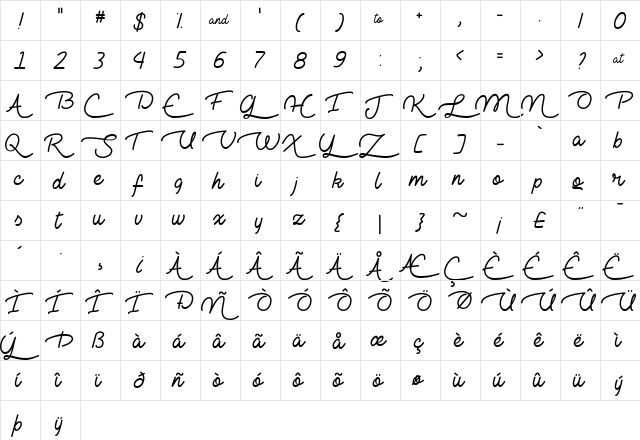
Lie to Me Regular
Design Context for Lie to Me Typeface
Lie to Me is a composed and adaptable typeface that performs quietly and consistently across a wide range of design contexts.